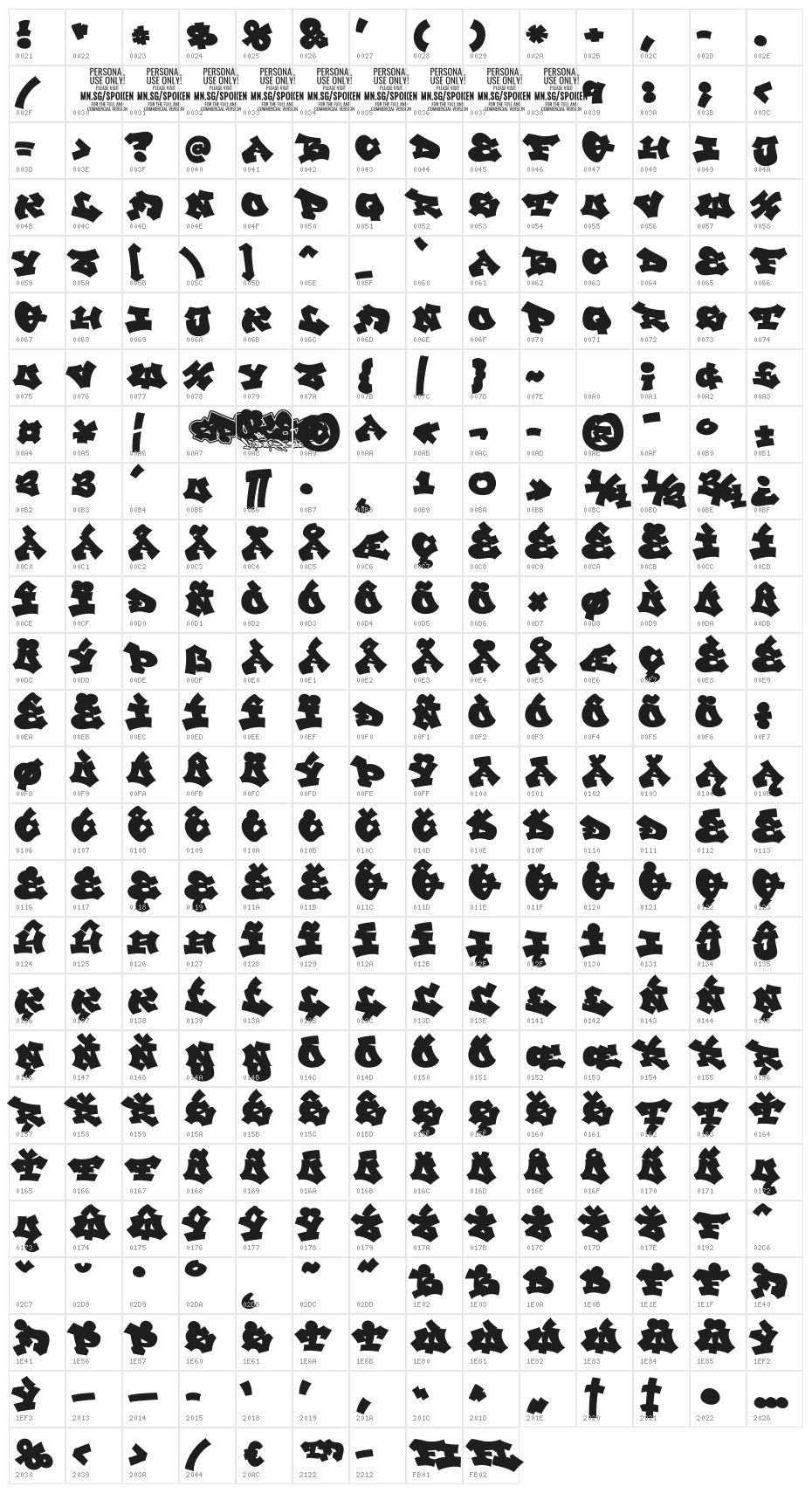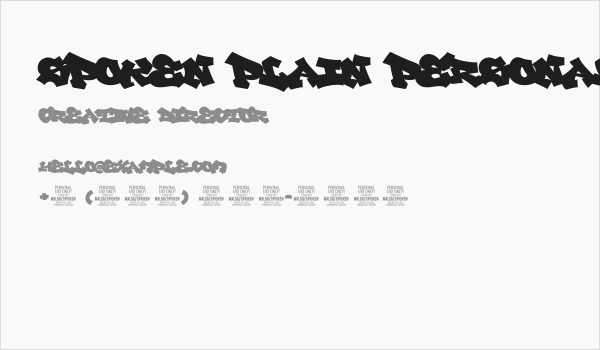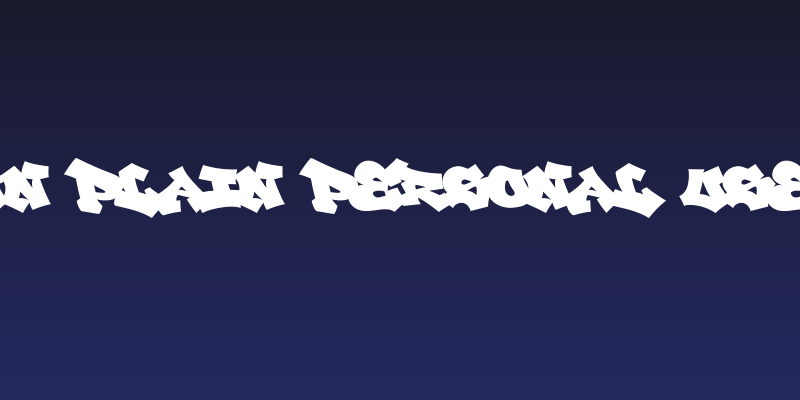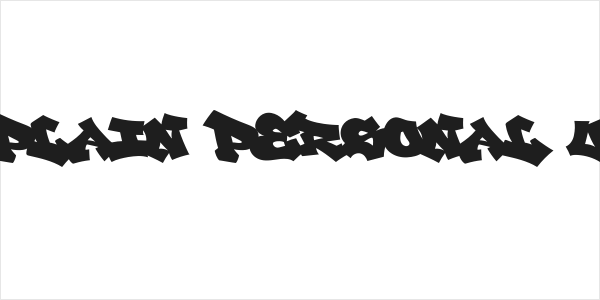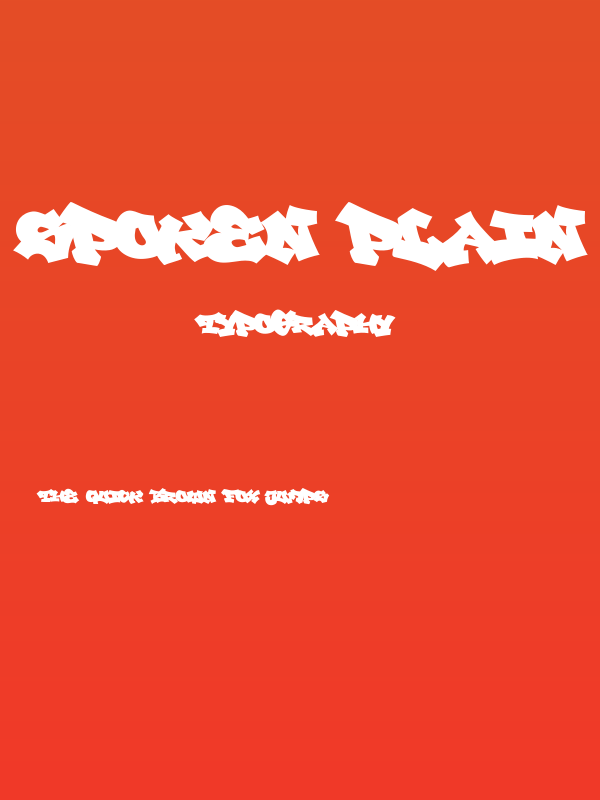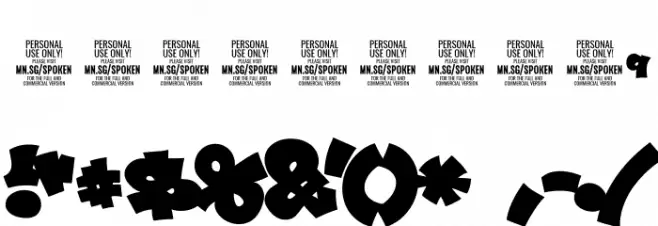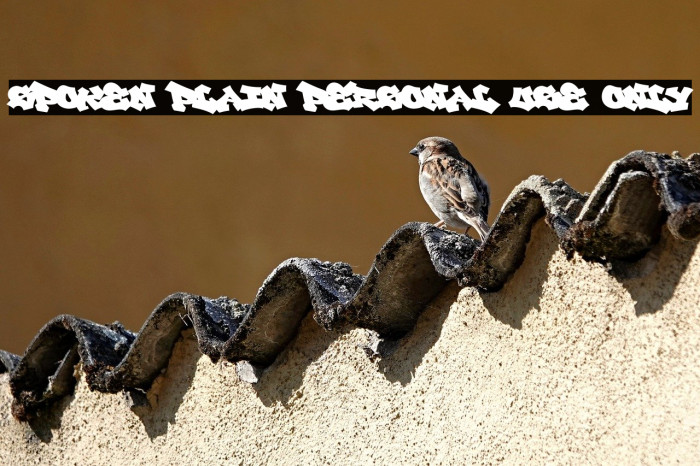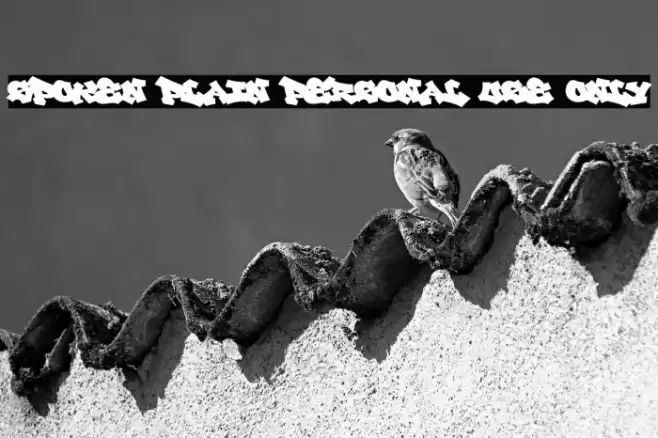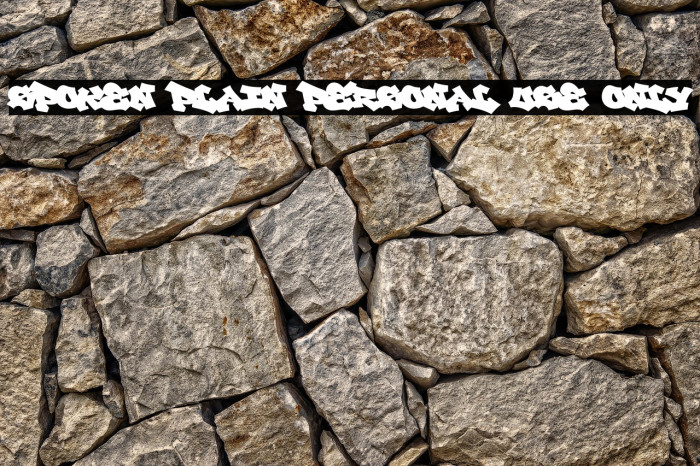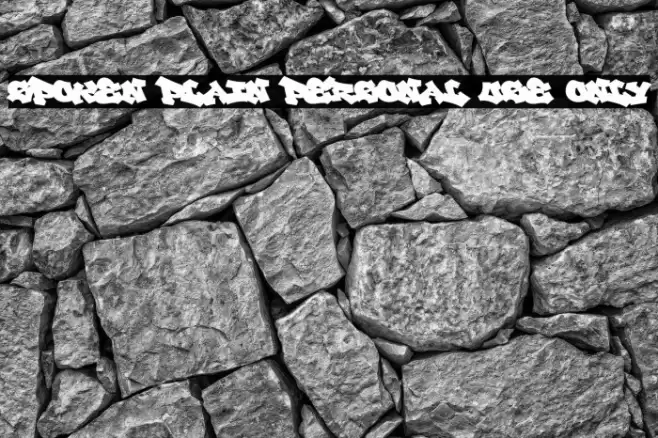
Spoken Plain PERSONAL USE ONLY Font
Spoken Plain PERSONAL USE ONLY Description
This font features a bold, graffiti-inspired style with thick, angular strokes and a dynamic, energetic appearance. The characters are highly stylized, with exaggerated curves and sharp edges that create a sense of movement and urban flair. The uppercase and lowercase letters maintain a consistent design theme, while the numbers and special characters complement the overall aesthetic. The font's unique and artistic nature makes it stand out, ideal for projects that require a strong visual impact.
| Overall Style | Urban, Graffiti, Energetic |
| Proposed Projects | Perfect for street art designs, urban-themed posters, music album covers, and edgy branding projects. |